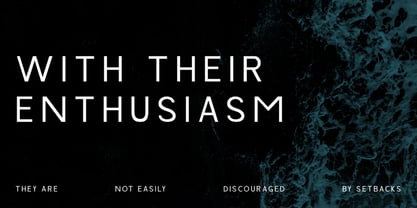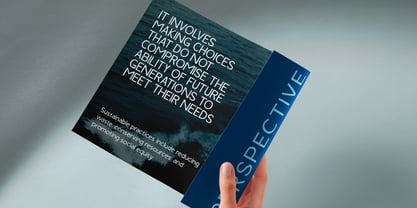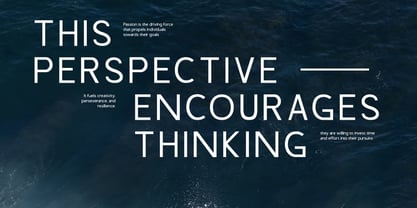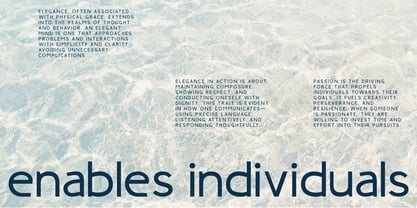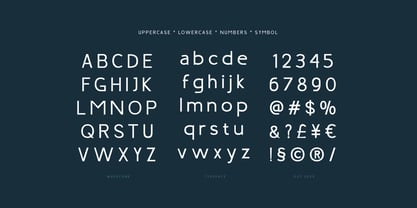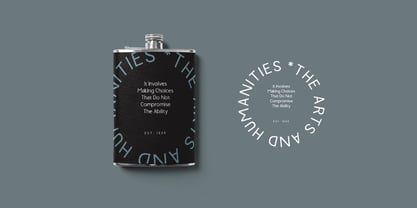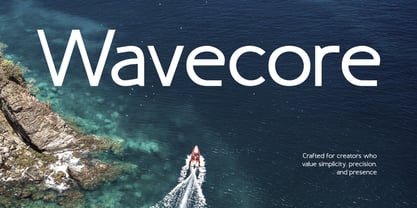
Wavecore
by Vadova Std
The Wavecore Font Family and published by Vadova Std. Wavecore contains 1 styles. More about this family
Wavecore is a bold and refined sans serif font that blends minimalist aesthetics with modern elegance. Designed with clean lines, balanced proportions, and a futuristic feel, this typeface is perfect for typographic posters, branding, editorial layouts, digital content, and corporate communication. Suitable For typographic poster, brand identity, editorial layout, modern website, digital magazine, portfolio design, business card, user interface, logo design, social media kit, tech branding, art print, web banner, clean layout, minimal ad, corporate profile, elegant label, product packaging, startup deck, advertising campaign.
Foundry: Vadova Std